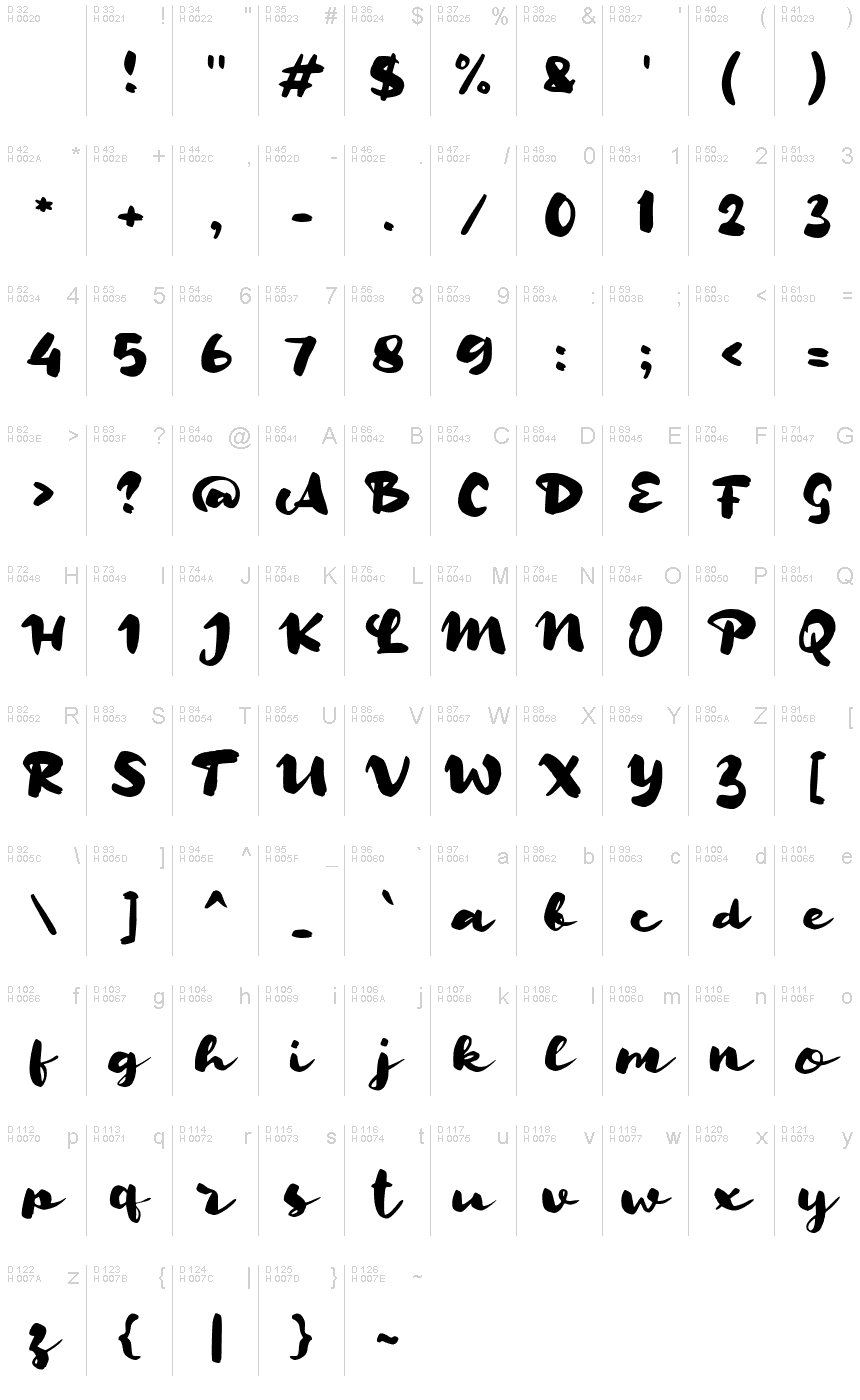
Fone
Fone, designed by wep, is a modern brush font with a bold weight. This delightful typeface brings an artistic touch to any project, making it suitable for various creative endeavors.
With its expressive and energetic brush strokes, Fone is perfect for branding and logo design projects that aim to evoke a contemporary and edgy vibe. Its bold weight also makes it an excellent choice for headlines and titles in magazines or posters, adding a captivating flair to the overall composition.
Fone's modern brush style effortlessly infuses personality into digital or print designs, making it an ideal option for websites, social media graphics, packaging designs, and more.
With its expressive and energetic brush strokes, Fone is perfect for branding and logo design projects that aim to evoke a contemporary and edgy vibe. Its bold weight also makes it an excellent choice for headlines and titles in magazines or posters, adding a captivating flair to the overall composition.
Fone's modern brush style effortlessly infuses personality into digital or print designs, making it an ideal option for websites, social media graphics, packaging designs, and more.